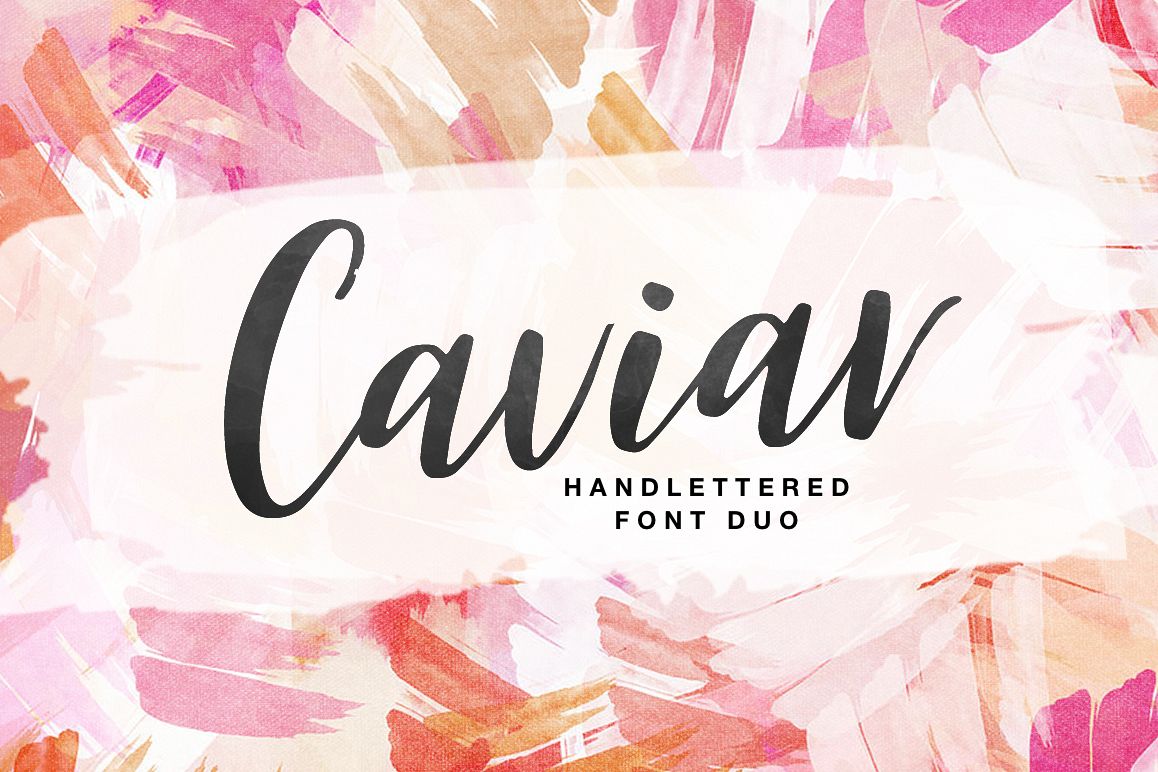
Caviar handwritten font DUO
It's a sweet hand lettered font DUO. This brush font is ideal for branding and decorate your any project.This font are perfect for wedding postcard. Or you can create perfect and unique design of your logo, blog, stationery, marketing, magazines and more :)